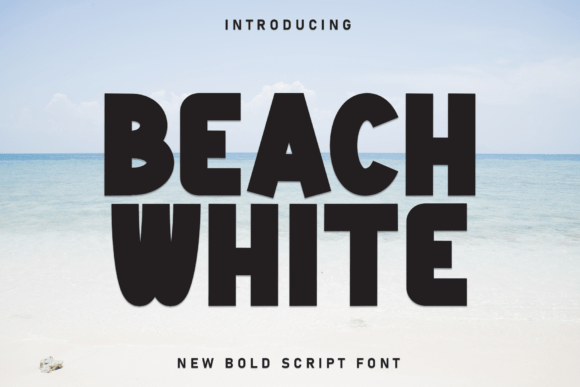
The Perfect Beachside Companion: Unpacking the Charm of Beach White Font
There’s something magical about a summer evening spent watching the sunset by the ocean. The sound of waves gently lapping against the shore, the smell of saltwater and sunscreen, and the feeling of freedom that comes with letting go of the world’s worries. It’s moments like these that inspire creativity and spark new ideas. For designers, it’s a time to recharge and refocus on the projects that bring them joy.
For those seeking a font that captures the essence of this carefree spirit, look no further than the Beach White Font. This casual display font is designed to add a fresh and friendly touch to any project, from posters and branding to packaging and social media graphics. With its clean shapes, soft edges, and well-balanced letterforms, it’s the perfect companion for designers looking to create designs that are both stylish and approachable.
Beach White Font Key Features
- Font Family: Beach White is a sans-serif font family designed for readability and legibility.
- Font Sizes: Beach White is available in a range of font sizes, from 10pt to 72pt, making it suitable for various design applications.
- Resolution: Designed for high-resolution displays, Beach White is ideal for use in digital design, including web and mobile applications.
- Unique Characteristics: Beach White features a clean and minimalist design, with a focus on clarity and readability. Its unique characteristics include a subtle rounded edge and a slightly condensed width.
- Language Support: Beach White supports a wide range of languages, including Latin, Cyrillic, and Greek alphabets, making it a versatile font for global design projects.
Beach White Font Review
I recently had the chance to work with the “Beach White Font” and I must say, it’s a decent addition to any web designer’s toolkit. ✨ The font’s clean and minimalist aesthetic makes it perfect for creating a beachy or summer-inspired vibe.
- The font’s legibility is top-notch, making it easy to read even at smaller font sizes.
- The font’s weight range is decent, with both light and bold variations available.
- The font’s styling options are limited, but it’s easy to work with in most design scenarios.
However, I do have a few concerns about the font’s limitations. ⚠️ The font doesn’t come with a lot of stylistic variations, which can make it feel a bit one-dimensional in certain contexts. Additionally, the font’s support for languages other than English is limited, which can be a problem if you’re working on a multilingual project.
Overall, I’d give the “Beach White Font” 3.5 out of 5 stars. While it’s not the most versatile font out there, it’s a solid choice for simple, summer-inspired designs. With a bit more development, I think this font could be a real contender in the design world.
Getting the Most Out of Beach White Font
To get the most out of Beach White Font, use it for:
- Casual, beach-themed designs
- Wedding invitations or stationery
- Summer-themed advertising materials
Beach White Font is commonly used for:
- Summer-themed logos
- Beach-themed graphics
- Wedding decorations and signage
Alternatives to Beach White Font
Open Sans is a modern sans-serif font that is highly legible and versatile. It’s a great alternative to Beach White Font for digital design projects, such as mobile apps, websites, and digital magazines. Open Sans is more geometric and has a higher x-height compared to Beach White Font, making it suitable for body text.
Comparison to Beach White Font: Open Sans is more condensed and has a slightly stronger contrast, making it more suitable for digital screens. Beach White Font has a softer and more rounded feel, making it more suitable for print materials.
Lato is a sans-serif font that is highly legible and elegant. It’s a great alternative to Beach White Font for design projects that require a clean and sophisticated look, such as corporate websites, magazines, and business cards. Lato is more elegant and has a higher contrast compared to Beach White Font, making it suitable for headings and titles.